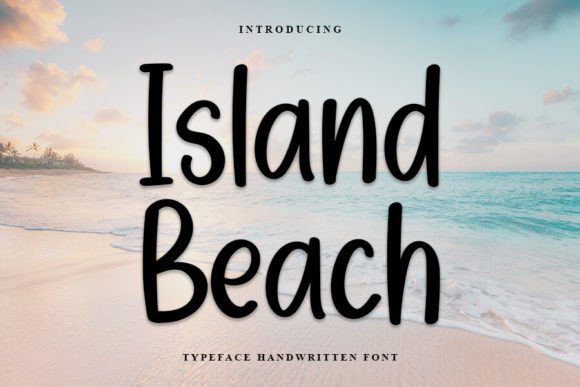
Island Beach: A Script Font for Elegant Branding
There's a specific feeling you get when a design element just clicks. It’s not about following a trend or using the most popular tool; it’s about finding a piece that has a distinct voice and knows how to use it. That’s the first impression with Island Beach. It’s a stylish and incredibly elegant script font that doesn’t just write words—it communicates a mood of refined, personal sophistication. Forget the generic, looping scripts that try too hard. This typeface has a confident, natural flow, as if sketched by a skilled calligrapher with a steady hand and a clear vision.
Visually, Island Beach strikes a beautiful balance. It has the fluidity and organic charm of a handwritten font, but with a level of polish and consistency that sets it apart. The letterforms feature graceful, sweeping strokes and thoughtful connections that feel both spontaneous and intentional. It’s a modern script, meaning it avoids the overly ornate, hard-to-read flourishes of some traditional calligraphy fonts. Instead, it offers a clean elegance that feels contemporary and fresh. The overall personality is one of understated luxury—it’s inviting and personal without being casual or sloppy. This makes it a versatile creative font for projects where you want to add a human touch without sacrificing professionalism.
Where Island Beach Truly Shines: From Wedding Invitations to Brand Logos
The real test of any display font is its application. Where does Island Beach not only work, but actively elevate a project? Its strengths lie in applications where personality, elegance, and a direct connection with the audience are paramount.
In the world of event stationery and personal projects, this font is a natural fit. It looks stunning on wedding invitations, setting a tone of romantic sophistication from the first glance. Think save-the-dates, ceremony programs, and menus. For thank you cards and personal quotes, it transforms a simple message into a keepsake. Crafters and hobbyists will find it invaluable for creating beautiful greeting cards, scrapbook elements, and custom art prints that feel genuinely handcrafted.
For branding and commercial design, Island Beach is a powerful tool for building a specific kind of brand identity. It’s an excellent choice for logo design in industries like boutique hospitality, high-end wedding planning, artisanal goods, beauty products, and lifestyle coaching. A logo set in this script font immediately communicates a sense of care, quality, and personal service. It works beautifully on business cards, creating a memorable first impression that feels both professional and approachable. When used in packaging design, particularly for small-batch products, it adds a layer of perceived value and authenticity that generic sans serif fonts often can't achieve.
In digital and publishing contexts, its application requires a bit more strategy but can yield fantastic results. It’s a standout choice for hero text on website landing pages, instantly grabbing attention and setting the site's tone. For social media graphics, especially on platforms like Instagram and Pinterest, Island Beach can make quotes, announcements, and promotional images pop in a crowded feed. In editorial design, use it sparingly but effectively for pull quotes, chapter titles, or magazine cover headlines to add a dynamic, personal contrast to body text.
The Strategic Choice: Using a Script Font Effectively
Choosing a font like Island Beach is about more than just aesthetics; it's a strategic decision that influences how your message is received. A script or handwritten font, by its nature, draws the eye. This makes it perfect for creating a strong visual hierarchy. Use it for your main headline or a key piece of information you want to stand out, but pair it with a highly legible serif font or a clean sans serif font for body copy. Trying to read long paragraphs in a script font is a quick way to lose your audience.
This leads to one of the most important practical considerations: readability and font pairing. The elegance of Island Beach is best showcased at larger sizes, such as in logos, headers, and short callouts. For smaller text, always opt for a complementary typeface designed for clarity. A classic serif like Garamond or a modern sans serif like Montserrat can provide a beautiful, stable foundation that allows the script to be the star. This pairing is a cornerstone of effective modern typography.
When evaluating this premium font for a project, consider its character set. Does it include stylistic alternates or ligatures? These additional glyphs can be incredibly useful for customizing the look, allowing you to swap out certain letters to better fit your layout or avoid awkward connections. Always test the font with your specific words and phrases to see how the letters interact.